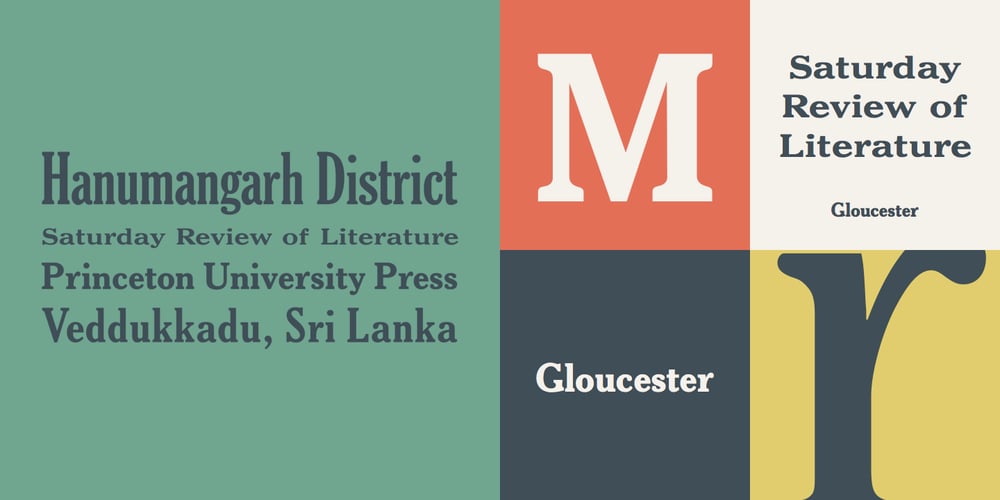
Gloucester
Gloucester font
Gloucester Font Family was designed by Monotype Design Studio and published by Monotype. Gloucester contains 5 styles and family package options. Gloucester is a smart, chipper, and studious typeface that evokes British literature and historic books. It’s highly legible and great for kids books. Use this font for a pub sign, a book about British history, or anything else that needs a sophisticated look.